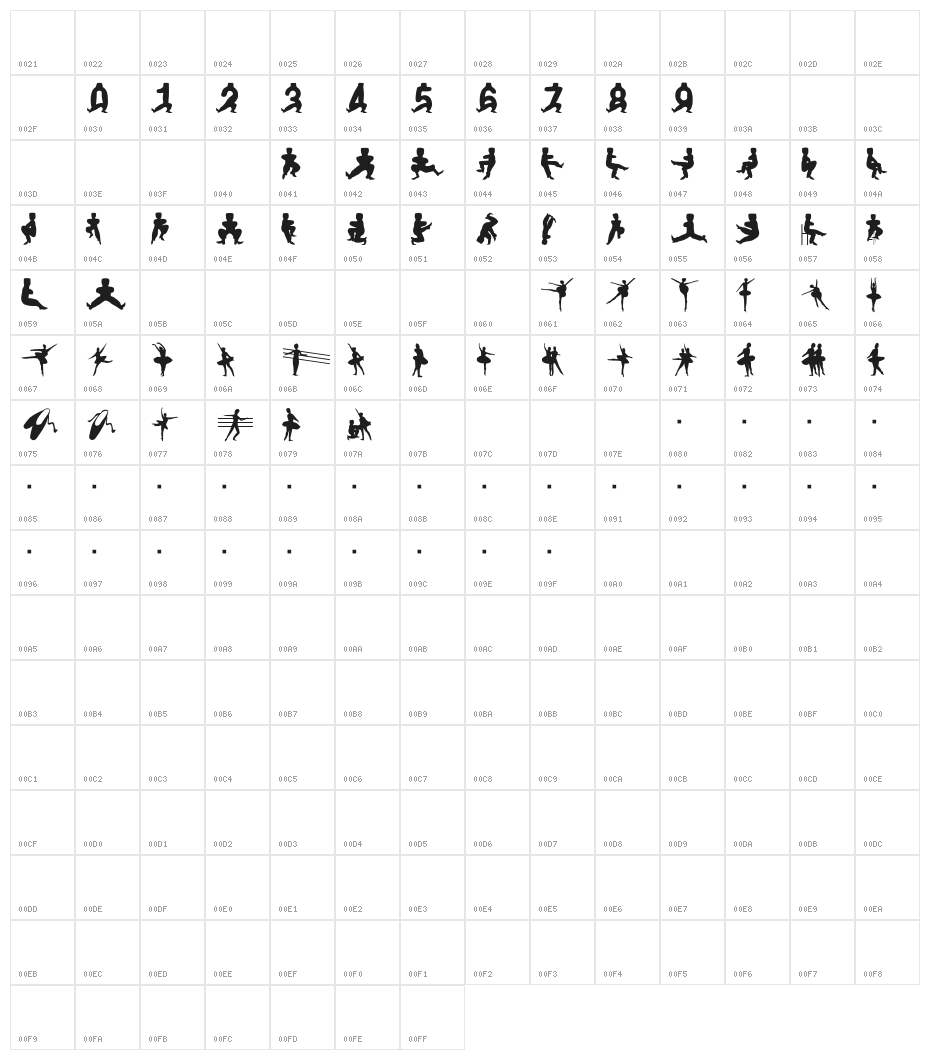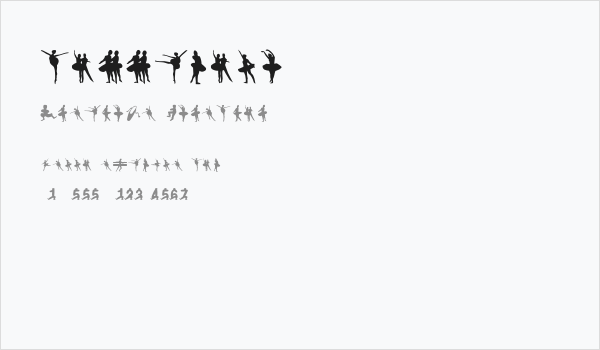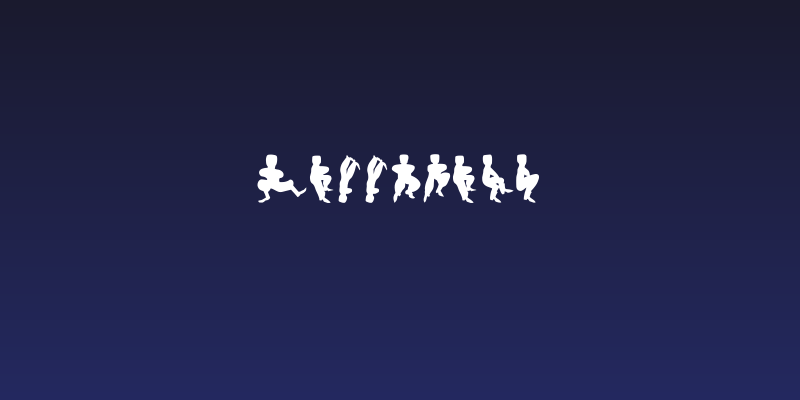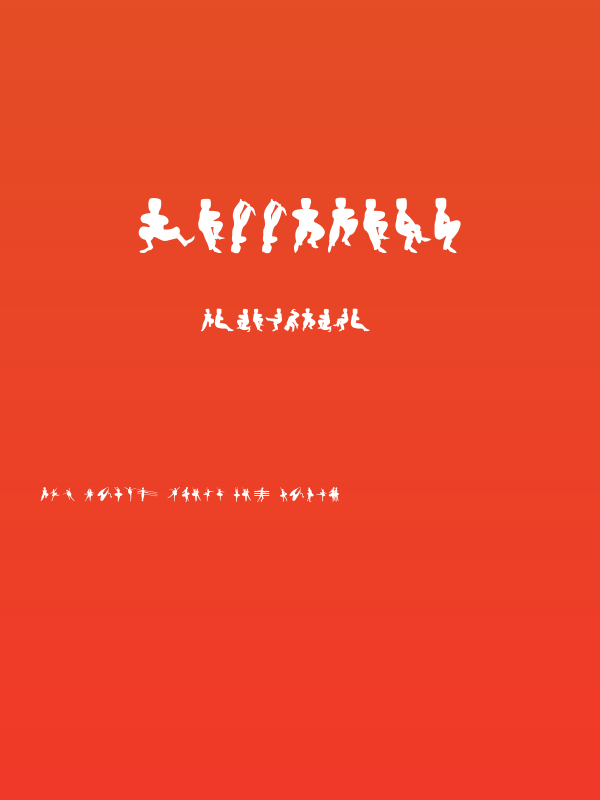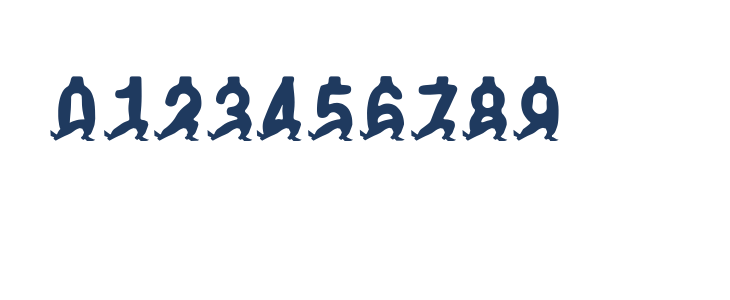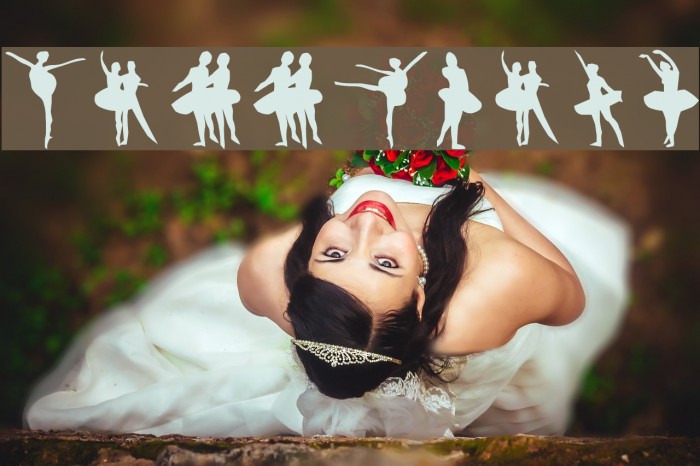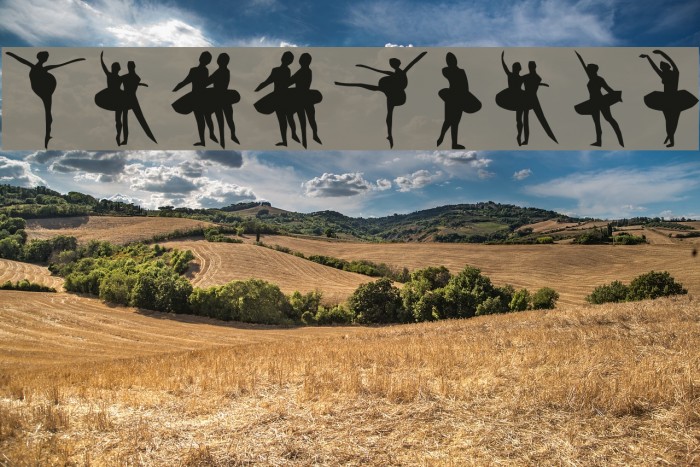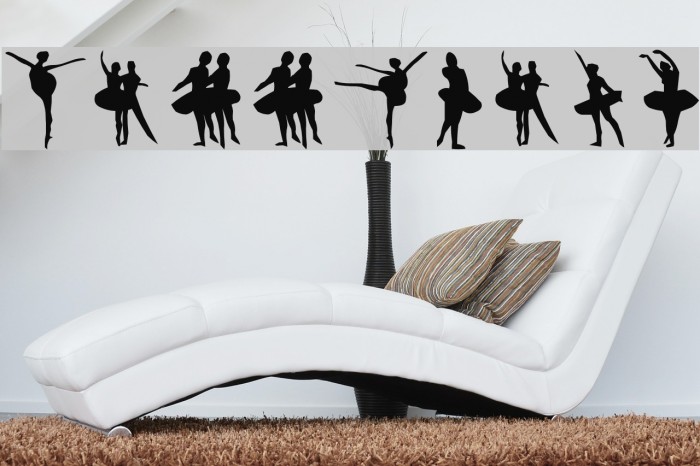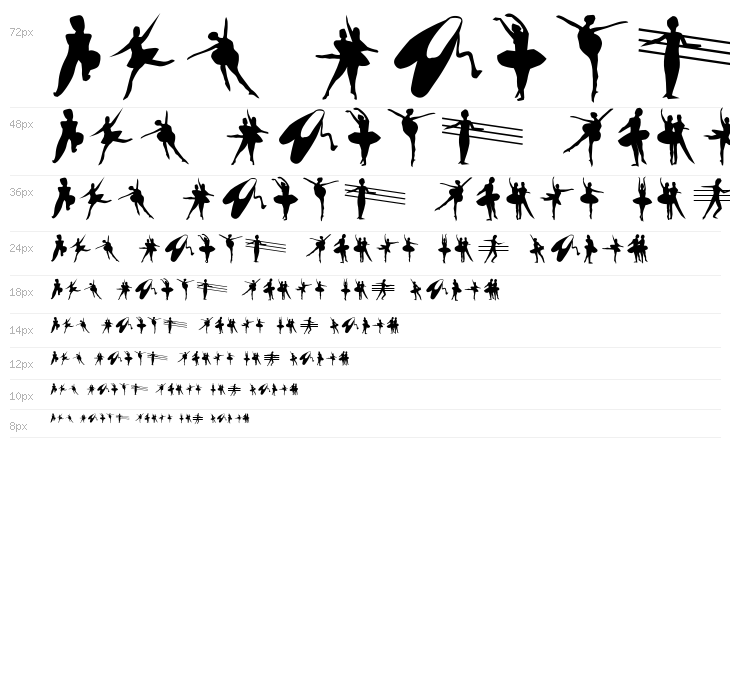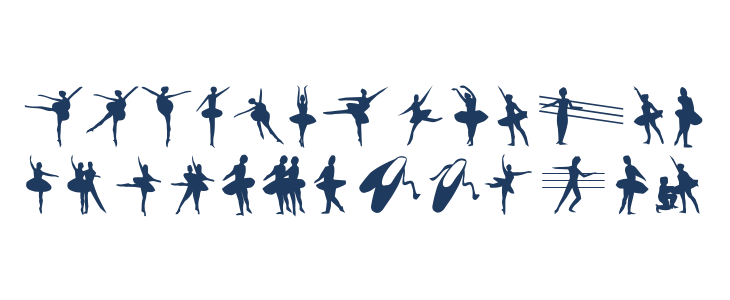
cossamoji Font
cossamoji Description
This is not a traditional font but rather a collection of silhouette images depicting dancers in various poses. Each character is represented by a unique dance position, creating a dynamic and artistic visual experience. The figures are bold and expressive, capturing the fluidity and grace of dance. This collection is more of an artistic representation than a functional typeface, making it ideal for creative projects that require a touch of movement and elegance.
| Overall Style | Artistic, Decorative |
| Use Case | Creative projects, Posters, Artistic designs |
| Proposed Projects | Ideal for dance-themed posters, creative art projects, event invitations, or any design requiring a dynamic and artistic touch. |